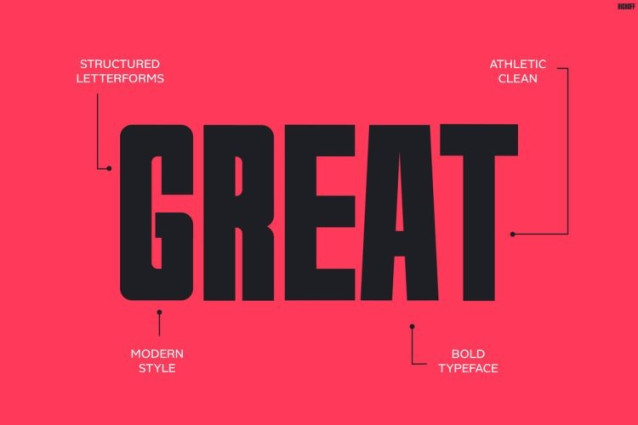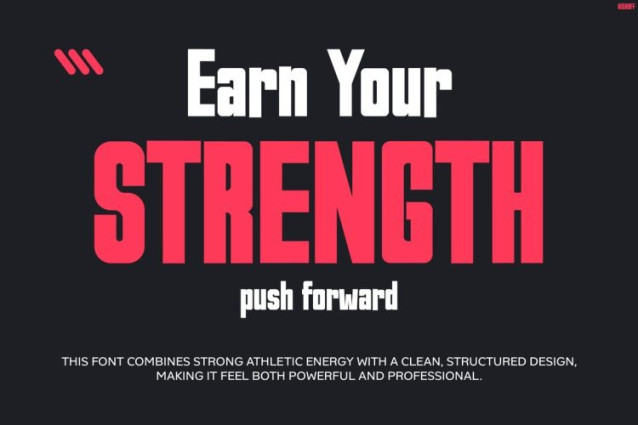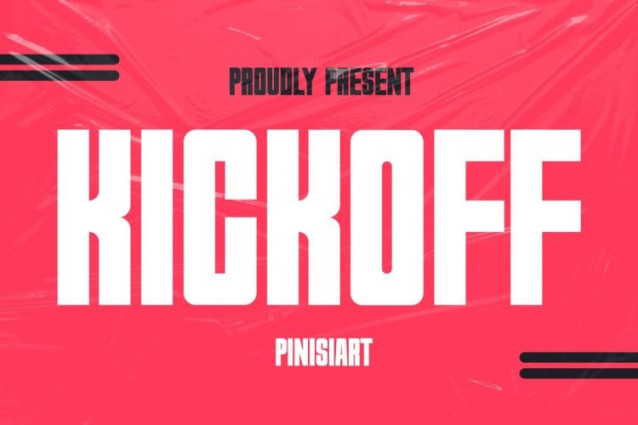
Kickoff Font
Kickoff Font is a powerful, high-impact display typeface designed to dominate attention instantly. Moreover, its tall, condensed letterforms and sharp edges create a striking and modern athletic aesthetic. In addition, the bold geometric structure enhances readability while still delivering an aggressive visual punch. As a result, every composition feels energetic, fast, and performance-driven. Not only does it capture attention, but it also reinforces strength and discipline through its clean yet intense styling. Therefore, KICKOFF becomes a perfect solution for designers who want bold, confident visuals that stand out in competitive spaces.
KICKOFF is built for creators who want their message to hit hard and fast. Furthermore, the font combines condensed proportions with heavy weight to maximize space efficiency without sacrificing clarity. In the same way, its uppercase dominance strengthens the overall tone, making each word feel commanding and impactful. Additionally, the clean cuts and modern structure allow it to adapt seamlessly across digital and print media. Whether you are designing posters, social media content, or branding materials, this font consistently delivers a powerful visual rhythm. Consequently, it enhances both readability and emotional impact at the same time.
This font is ideal for sports brands, gym promotions, and fitness campaigns. Likewise, it works exceptionally well for esports teams, athletic apparel branding, and high-energy advertising. In addition, content creators, designers, and marketers can use it for YouTube thumbnails, merchandise, and editorial layouts. Not only that, but event organizers and motivational campaigns will also benefit from its bold and disciplined character. Therefore, anyone aiming to communicate strength, focus, and performance will find KICKOFF highly effective.